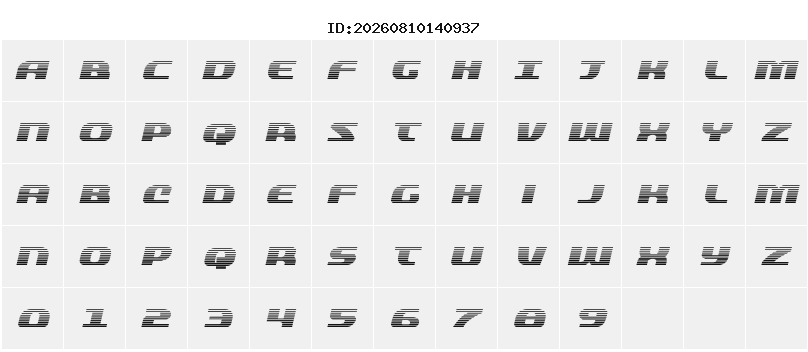
Quickening Gradient Italic Preview
• Font Name: Quickening Gradient Italic
• Full Font Name: Quickening Gradient Italic
About Quickening Gradient Italic.ttf
Quickening Gradient Italic.ttf is a modern, elegant sans-serif font designed for ultimate readability and visual harmony. Perfect for branding, headlines, web design, and print materials.